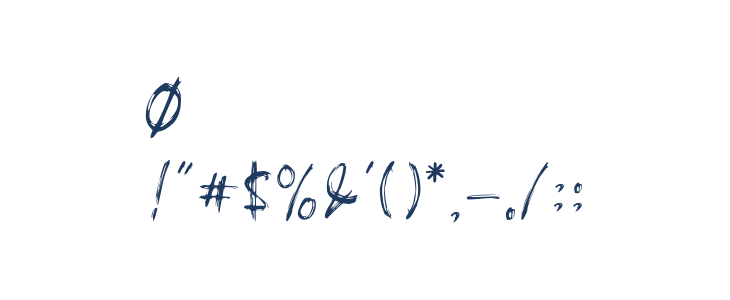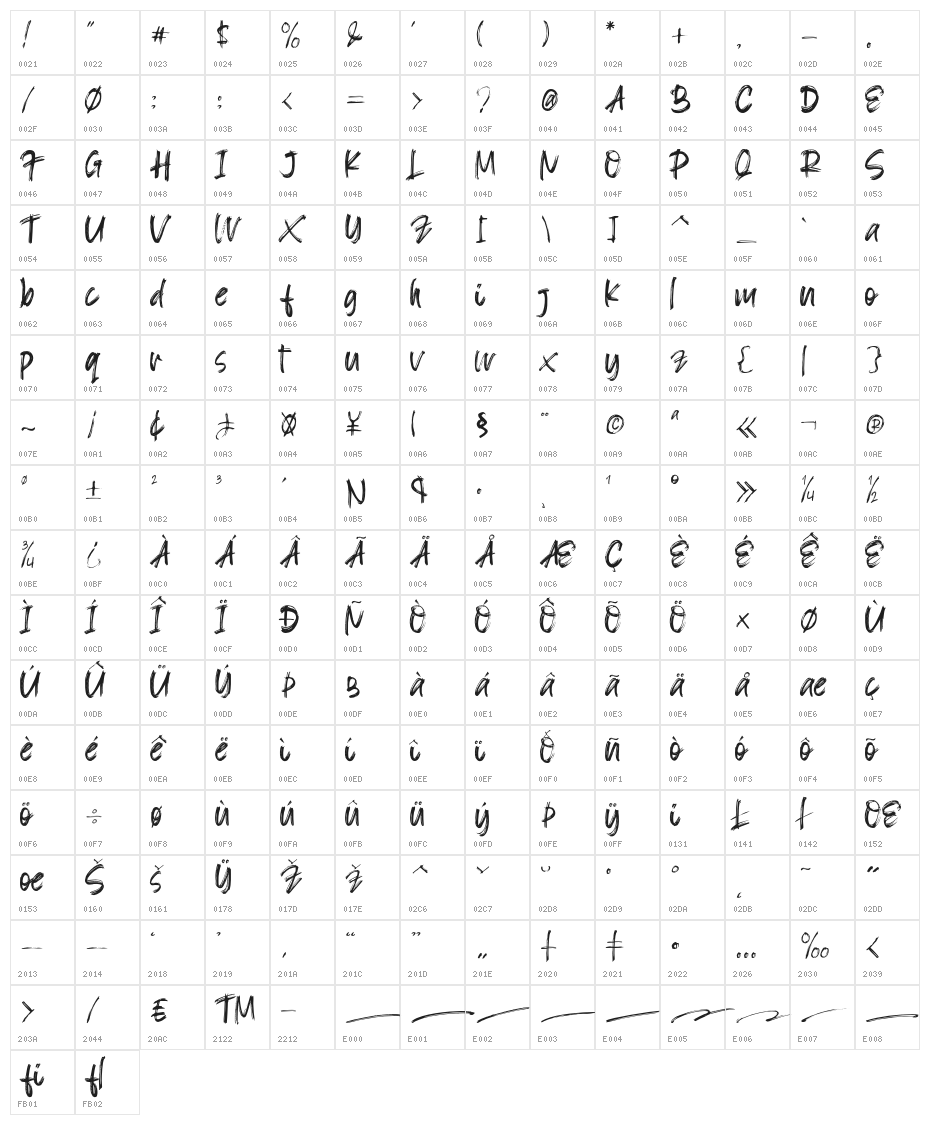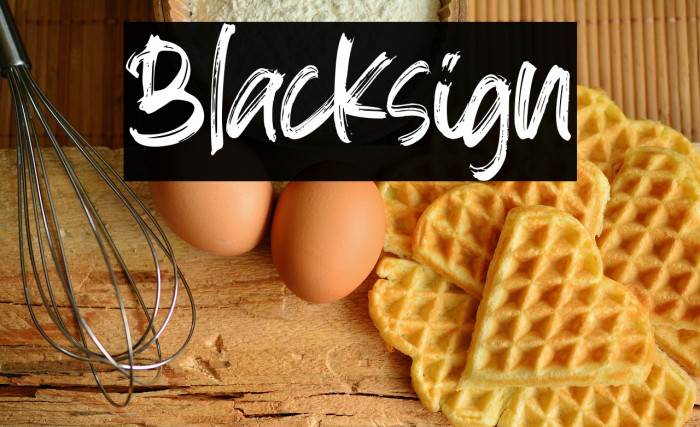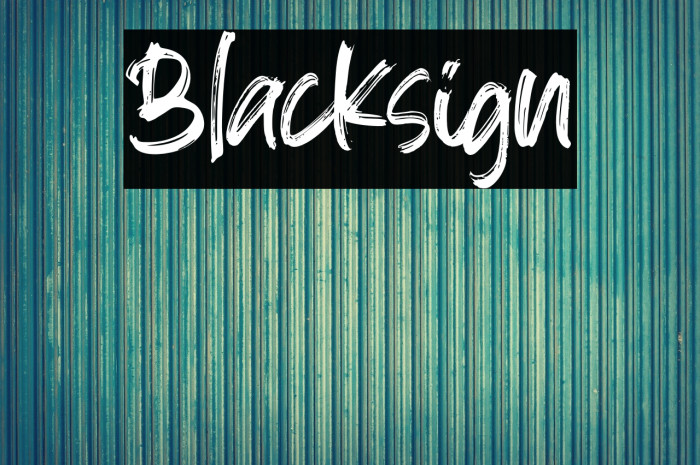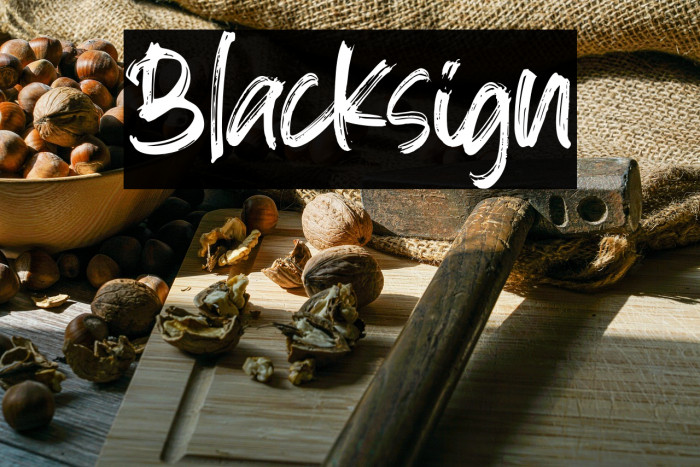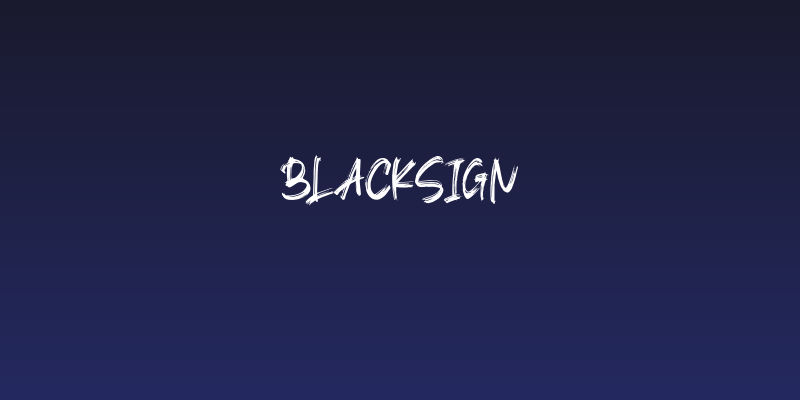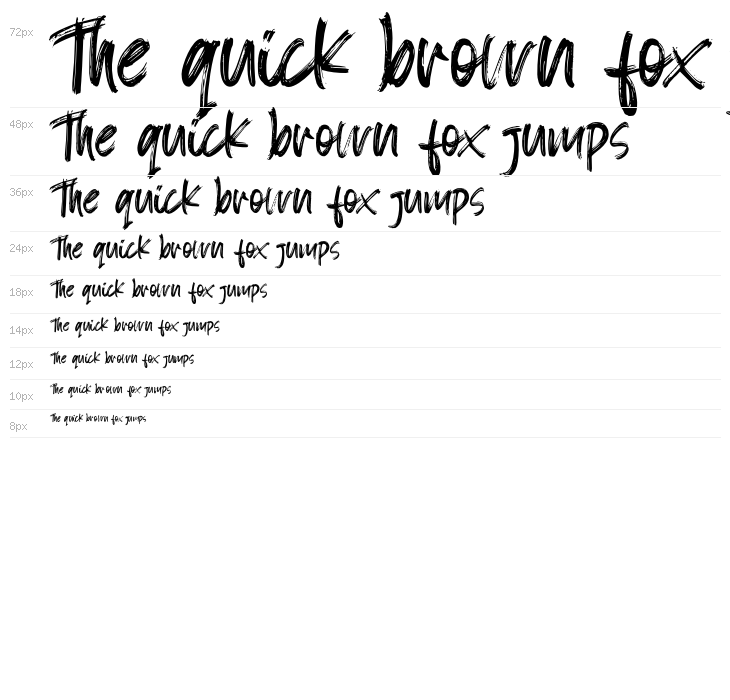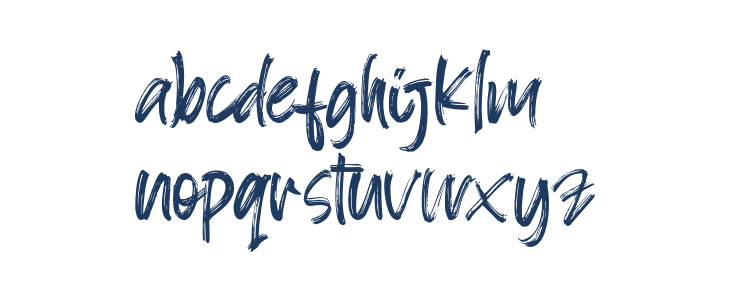
Blacksign Font
Blacksign Description
This font exudes a bold and expressive style, characterized by its brush-like strokes and dynamic appearance. The letters are crafted with a sense of movement, giving them an energetic and artistic flair. Each character is unique, with varying stroke thickness that adds to the font's handcrafted feel. The uppercase and lowercase letters maintain a consistent style, while the numbers and special characters complement the overall design. This font is perfect for projects that require a personal touch and a sense of creativity.
| Overall Style | Modern, Artistic |
| Proposed Projects | Ideal for branding, posters, artistic projects, and any design requiring a bold, creative touch. |